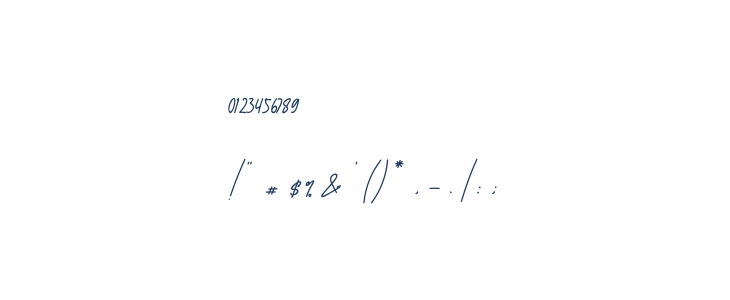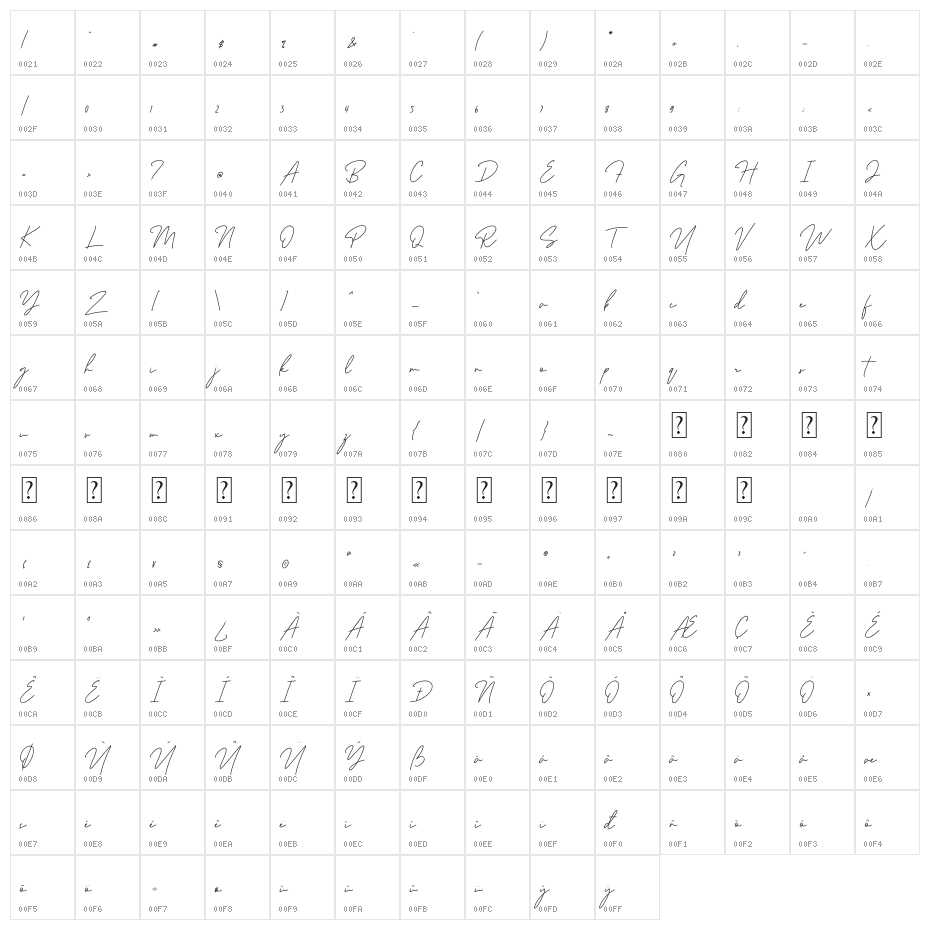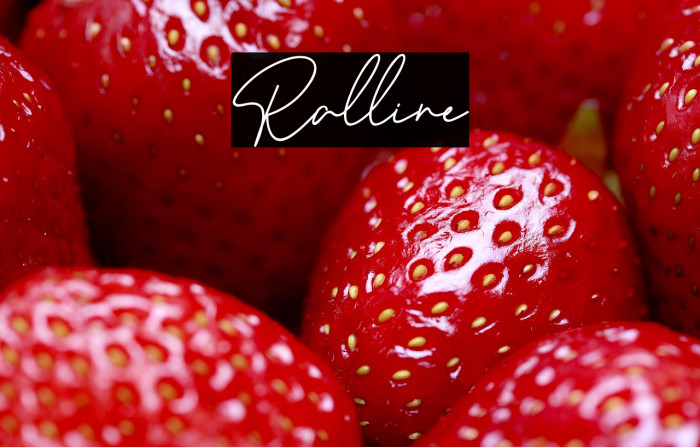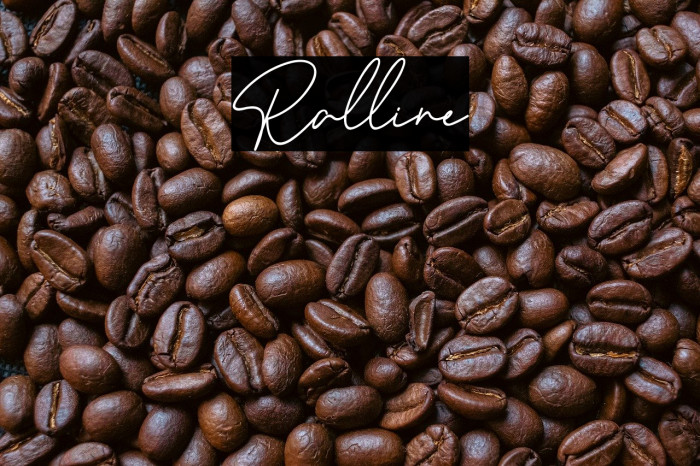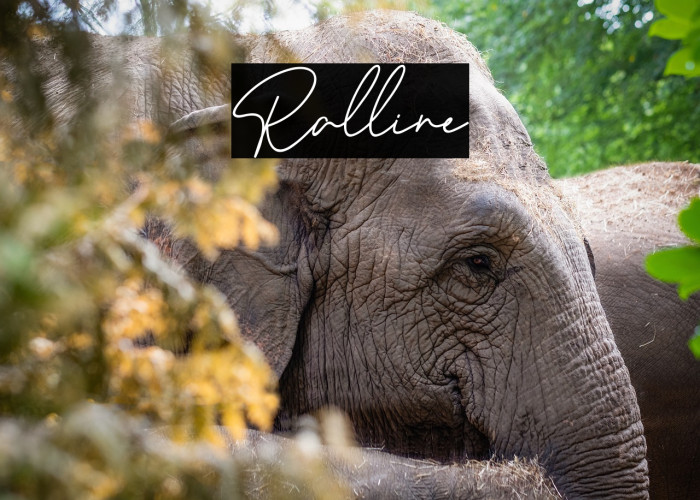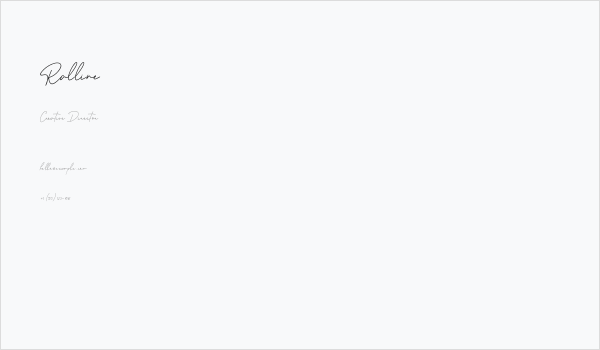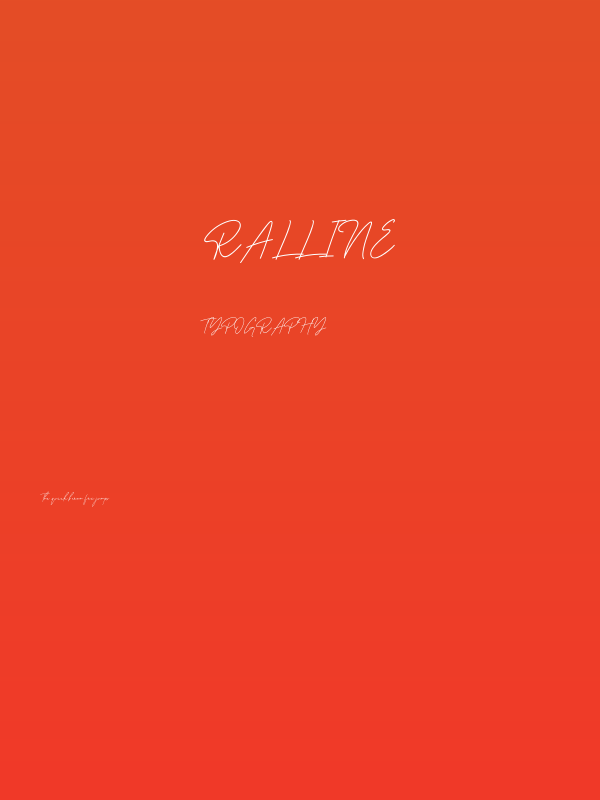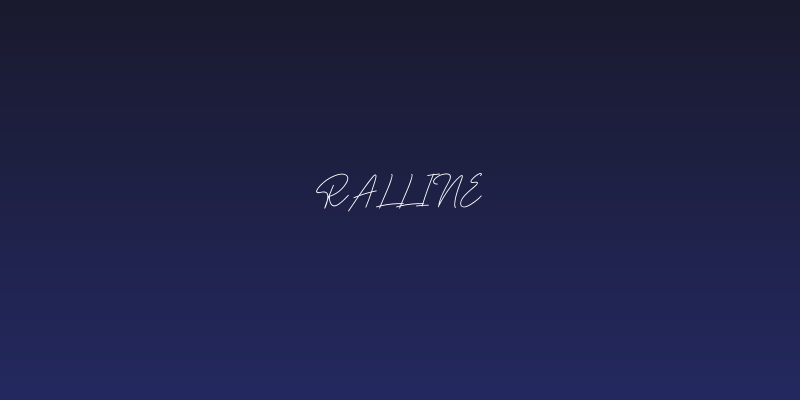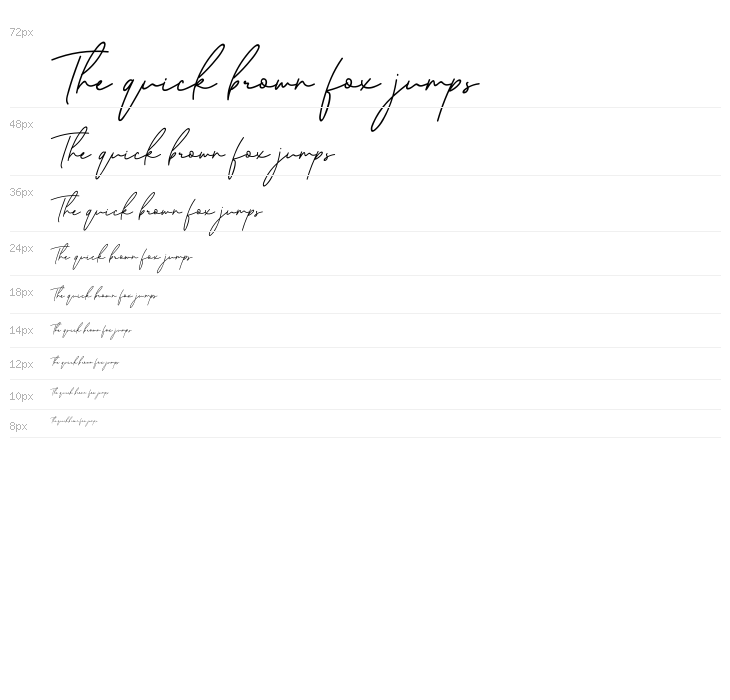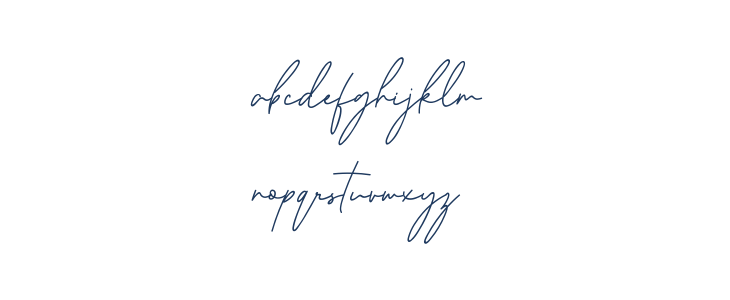
Ralline Font
Ralline Description
This font exudes a modern and elegant handwritten style, characterized by its fluid and continuous strokes. The letters are connected in a cursive manner, giving it a personal and intimate feel. The uppercase letters are slightly more structured, while the lowercase letters flow seamlessly into one another. The numbers and special characters maintain the same fluidity, ensuring consistency across all characters. This font is perfect for adding a touch of sophistication and elegance to any project, making it ideal for invitations, branding, and personal notes.
| Use Case | Invitations, Branding, Personal notes |
| Proposed Projects | Ideal for wedding invitations, personal branding, elegant stationery, and artistic projects. |